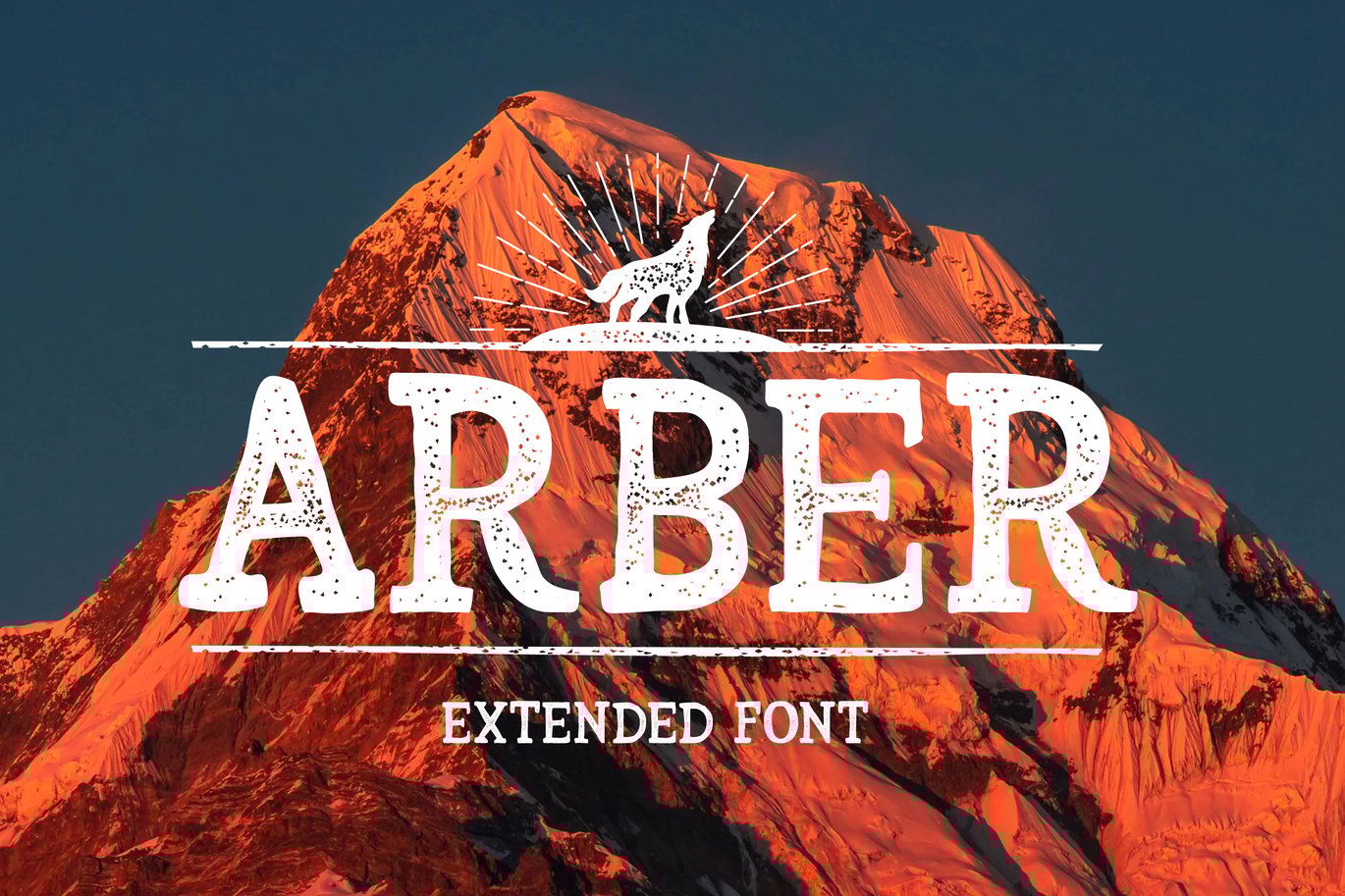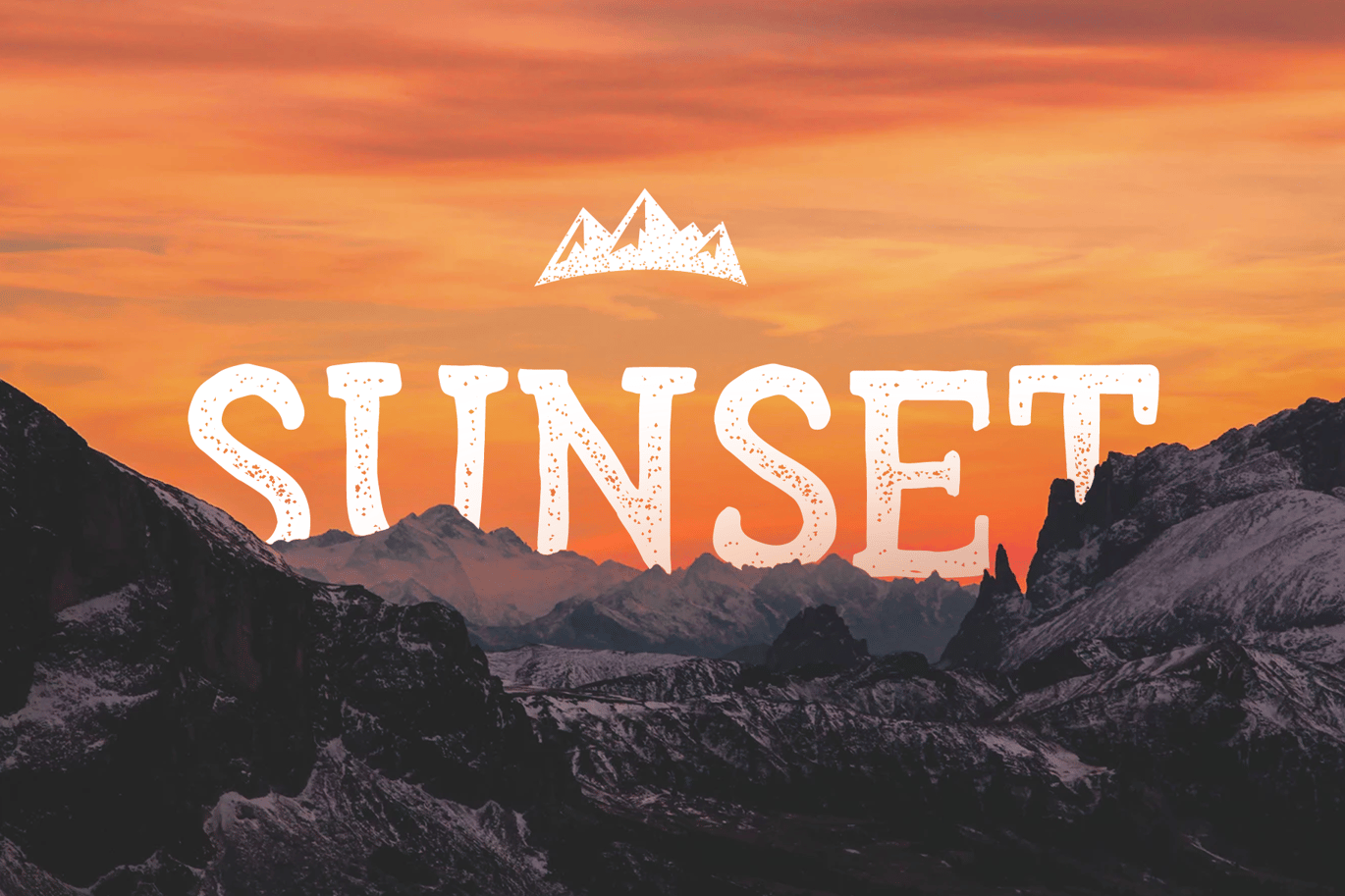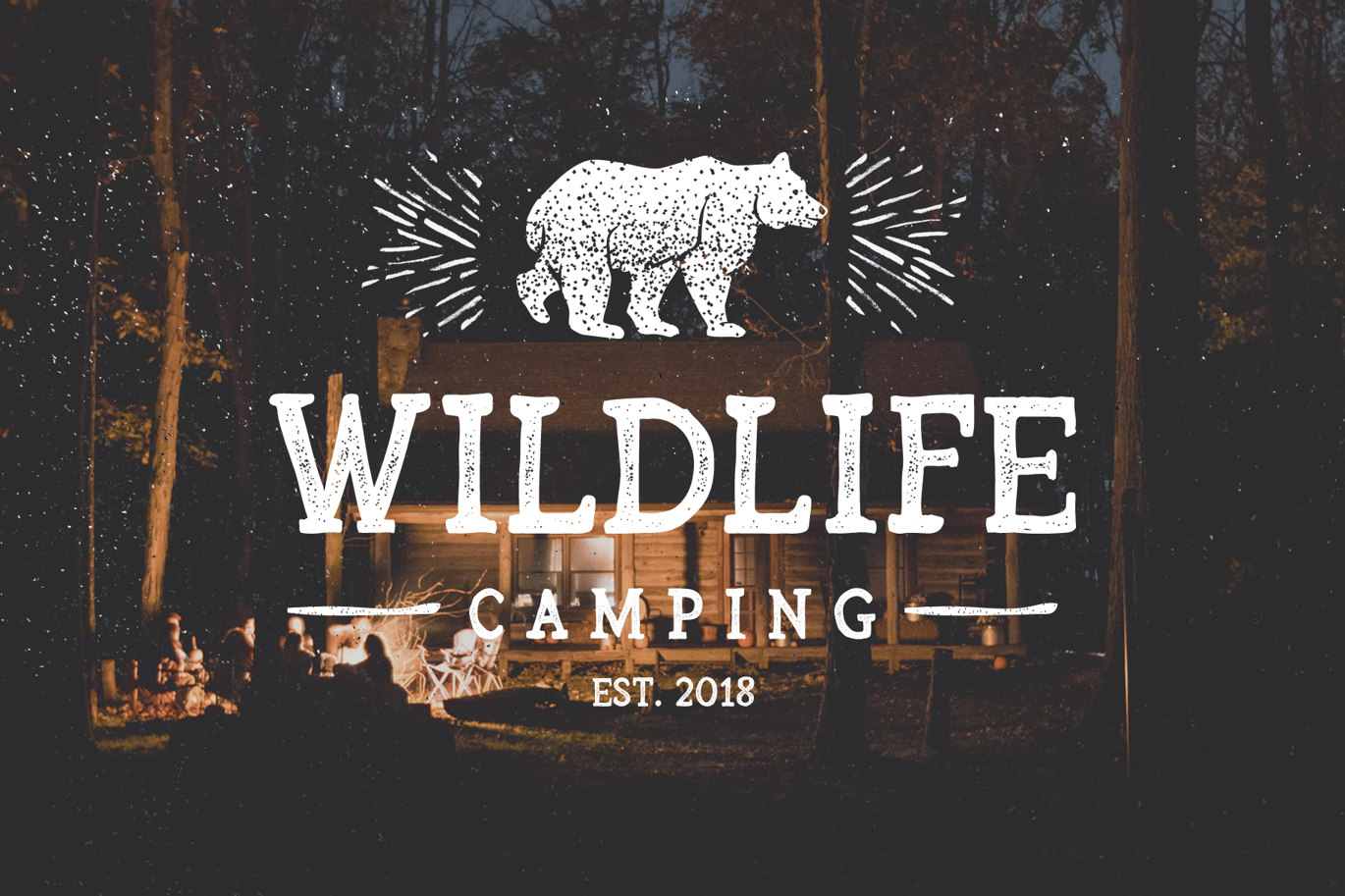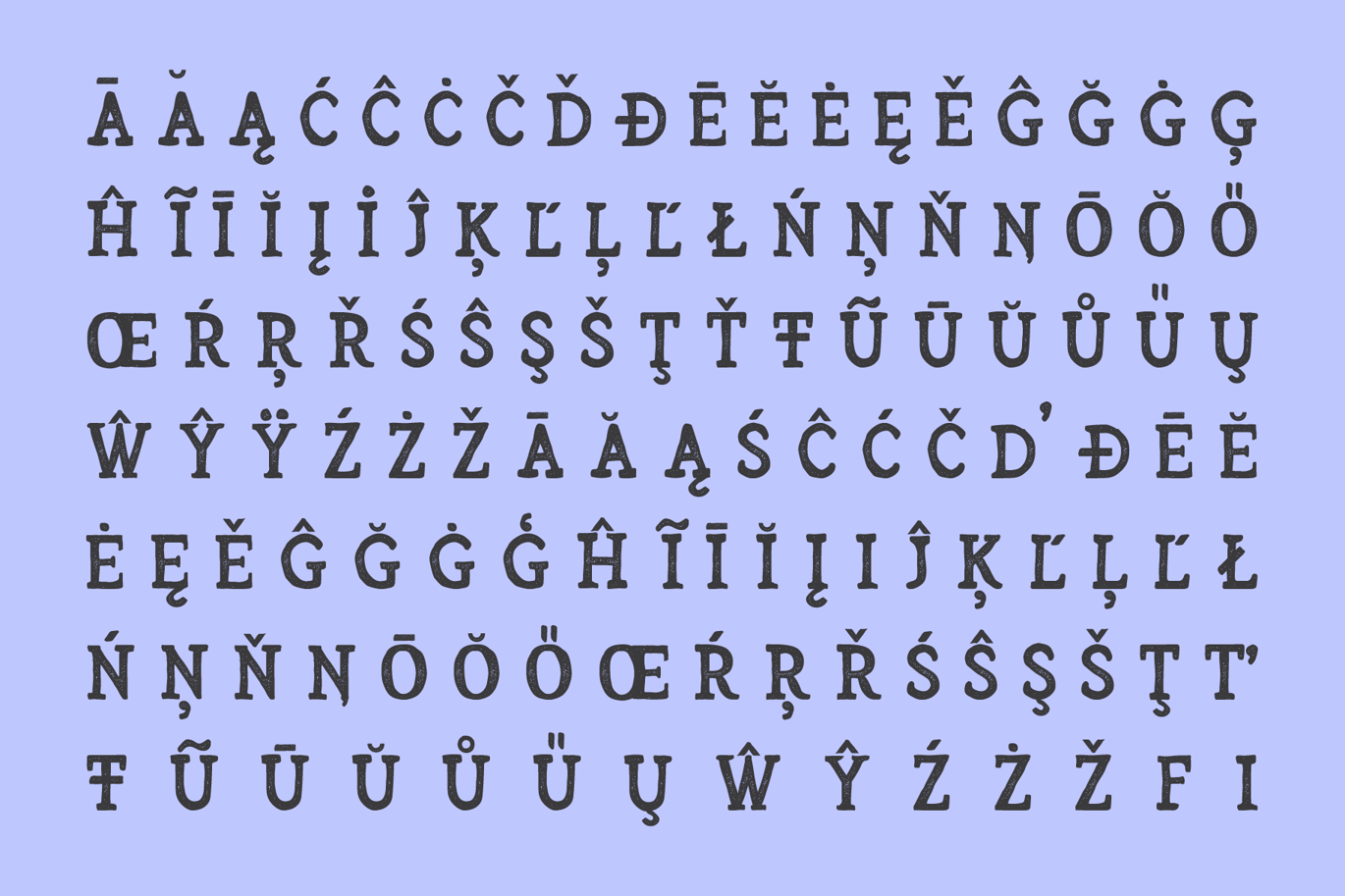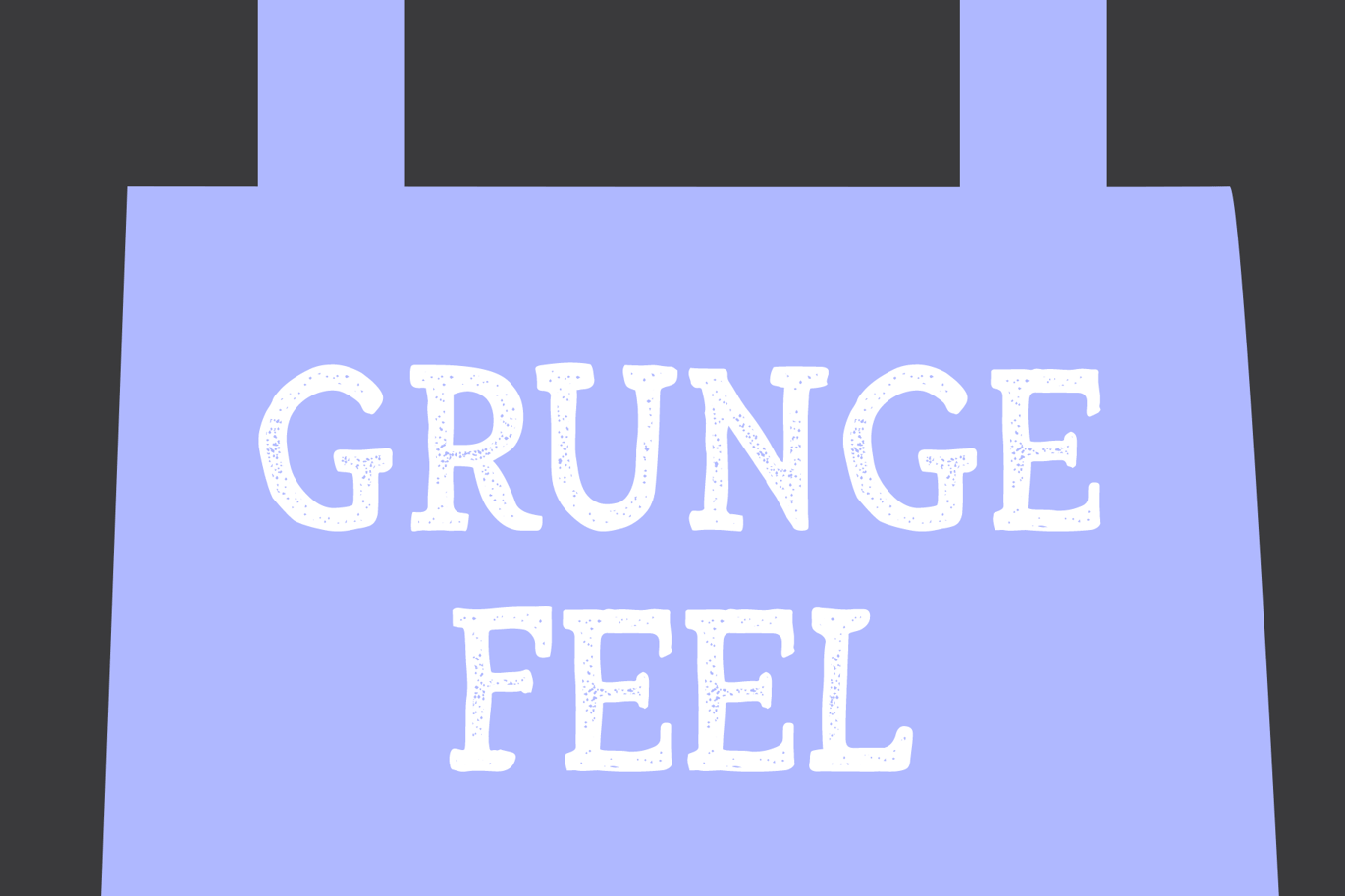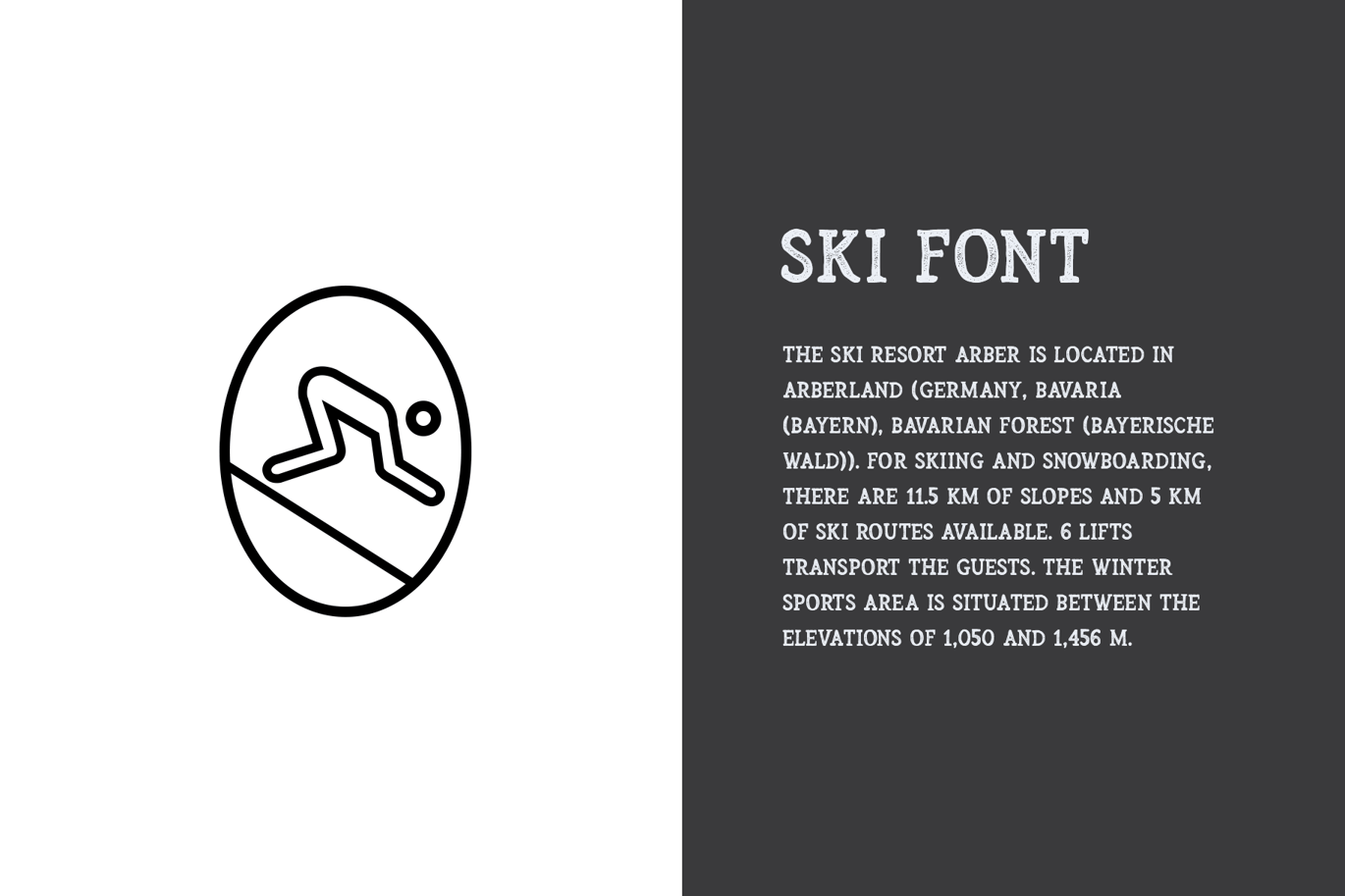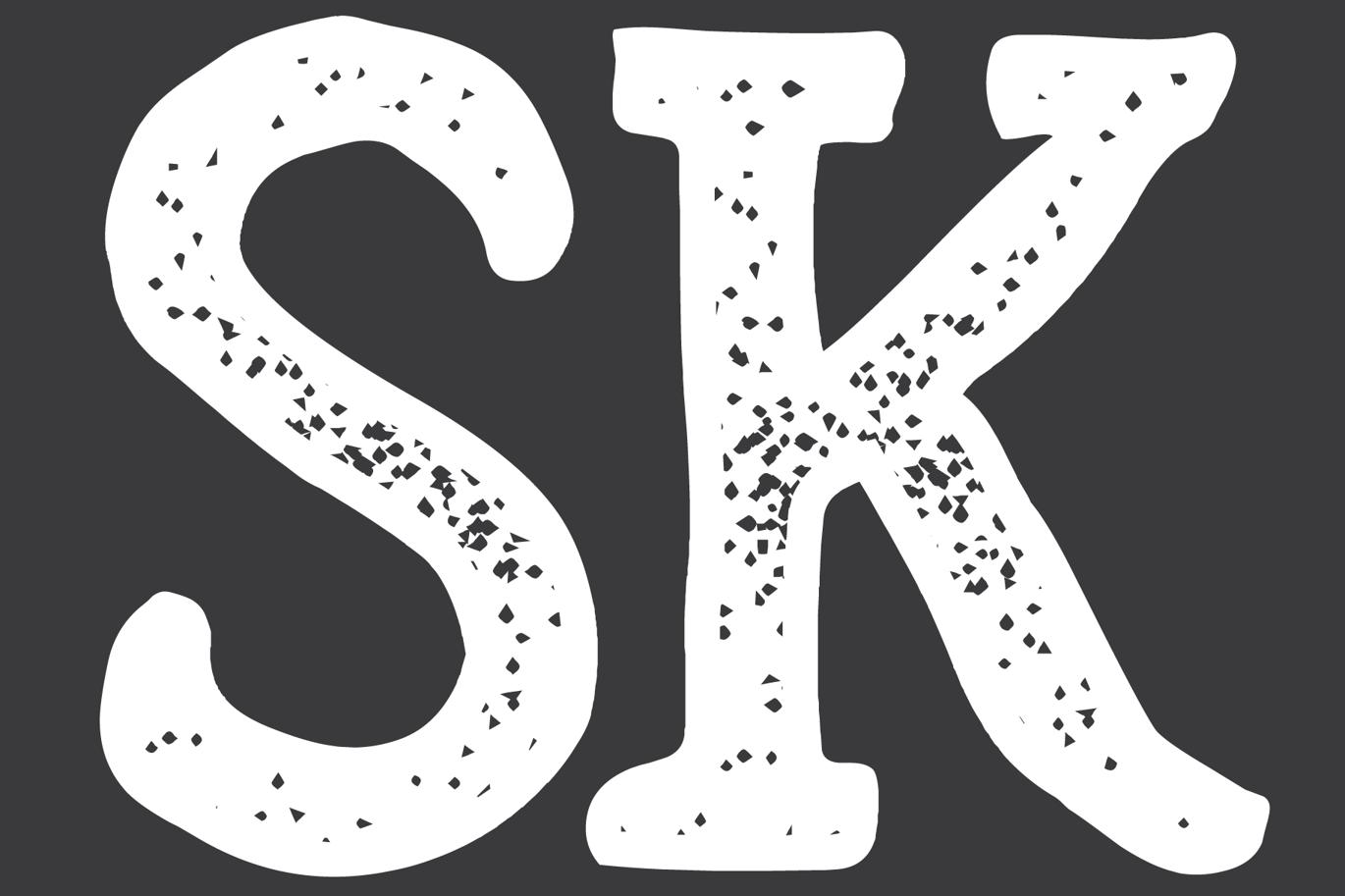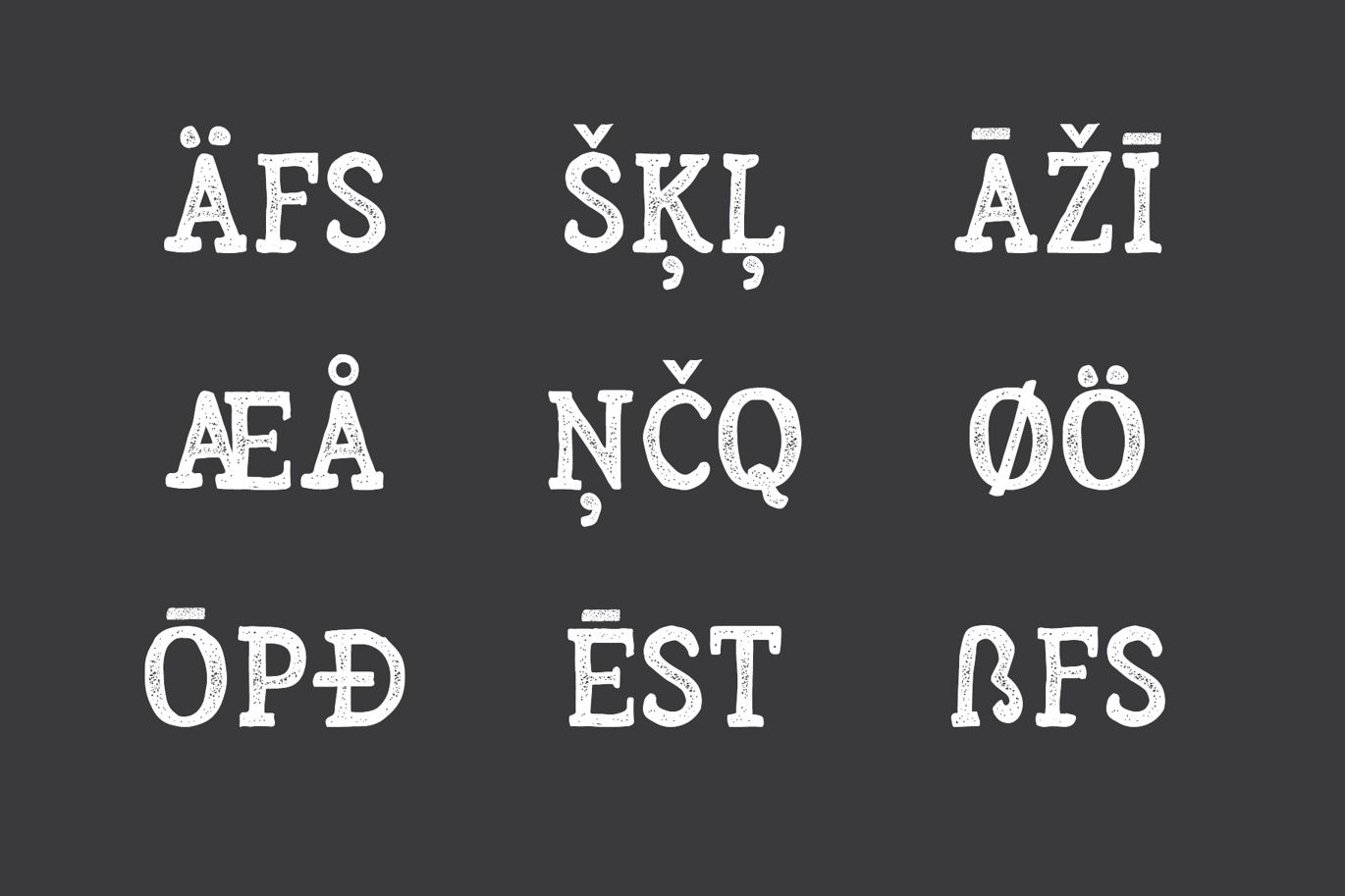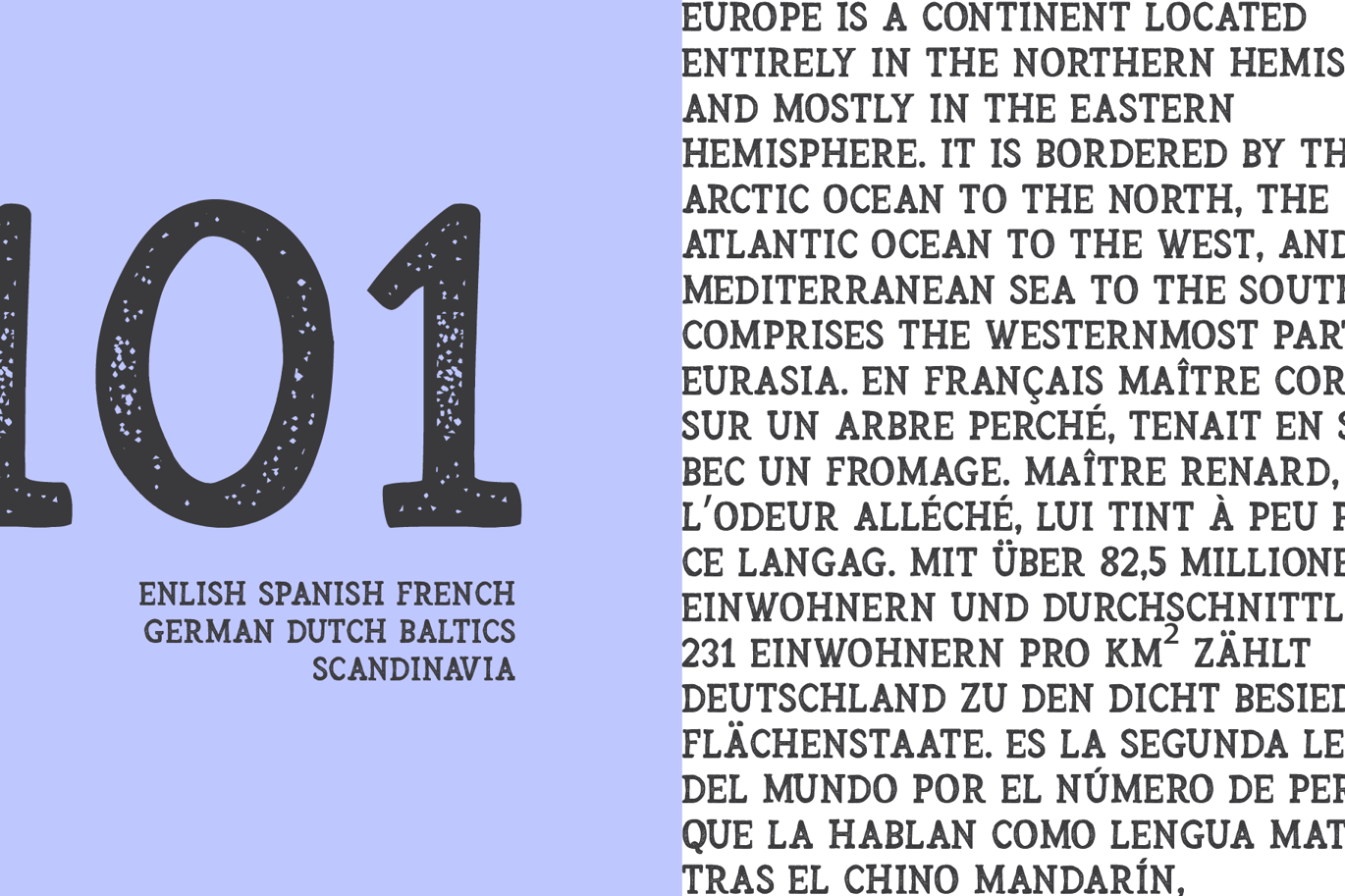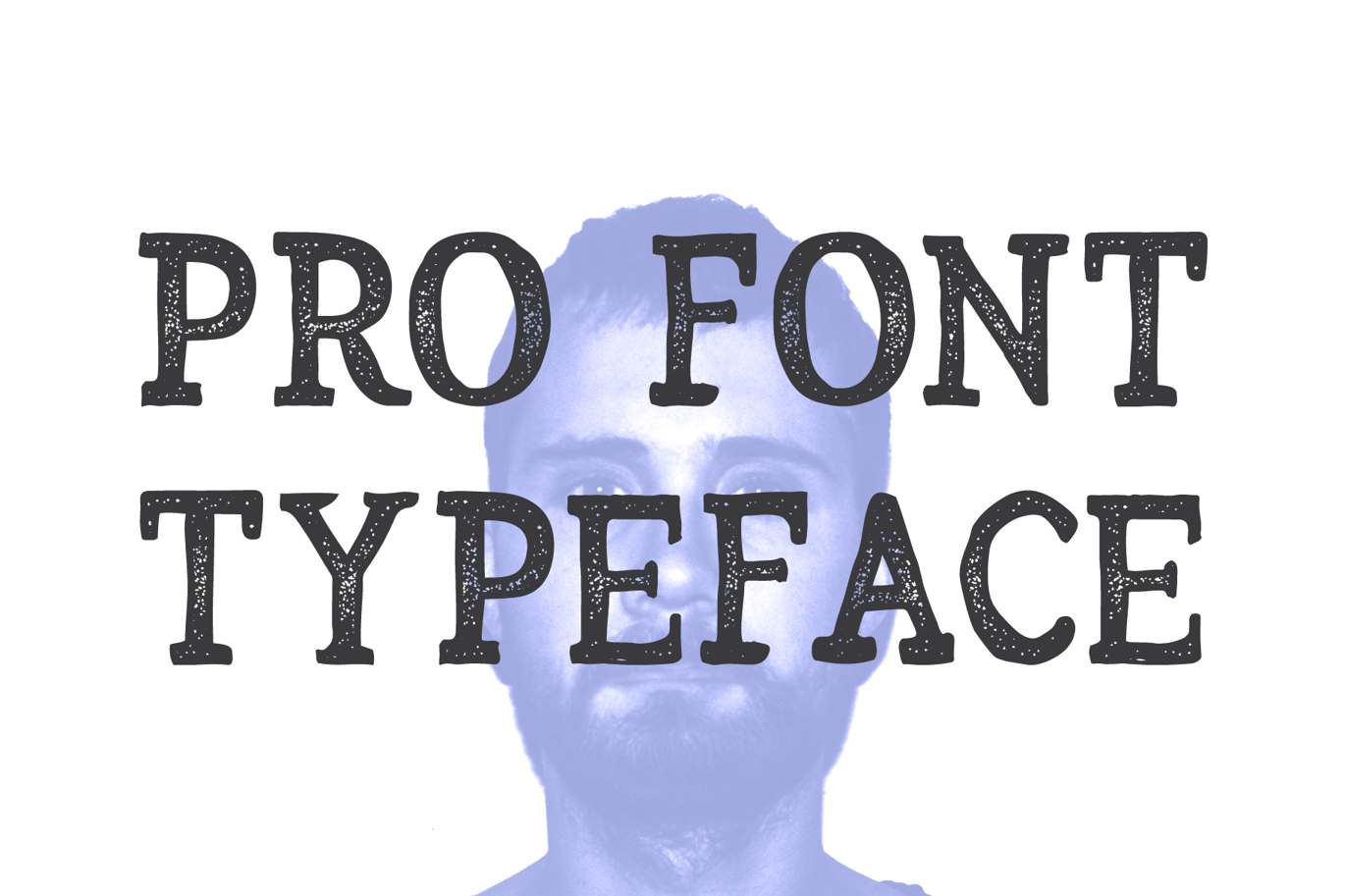
Arber Extended Vintage Font
Arber is a handwritten brush vintage rustic font in one weight. This is the extended version of the previous free Arber. The inspiration for the typeface came from old vintage posters where every letter is drawn with hand, so making a unique style. So the main purpose of the font is to help creators communicate their ideas with a more natural and personal selection of characters. The font embodies a individual and unique visual style and can be used in different sorts of projects starting from vintage work to hand made feel projects. Arber font was made by Krisjanis Mezulis.